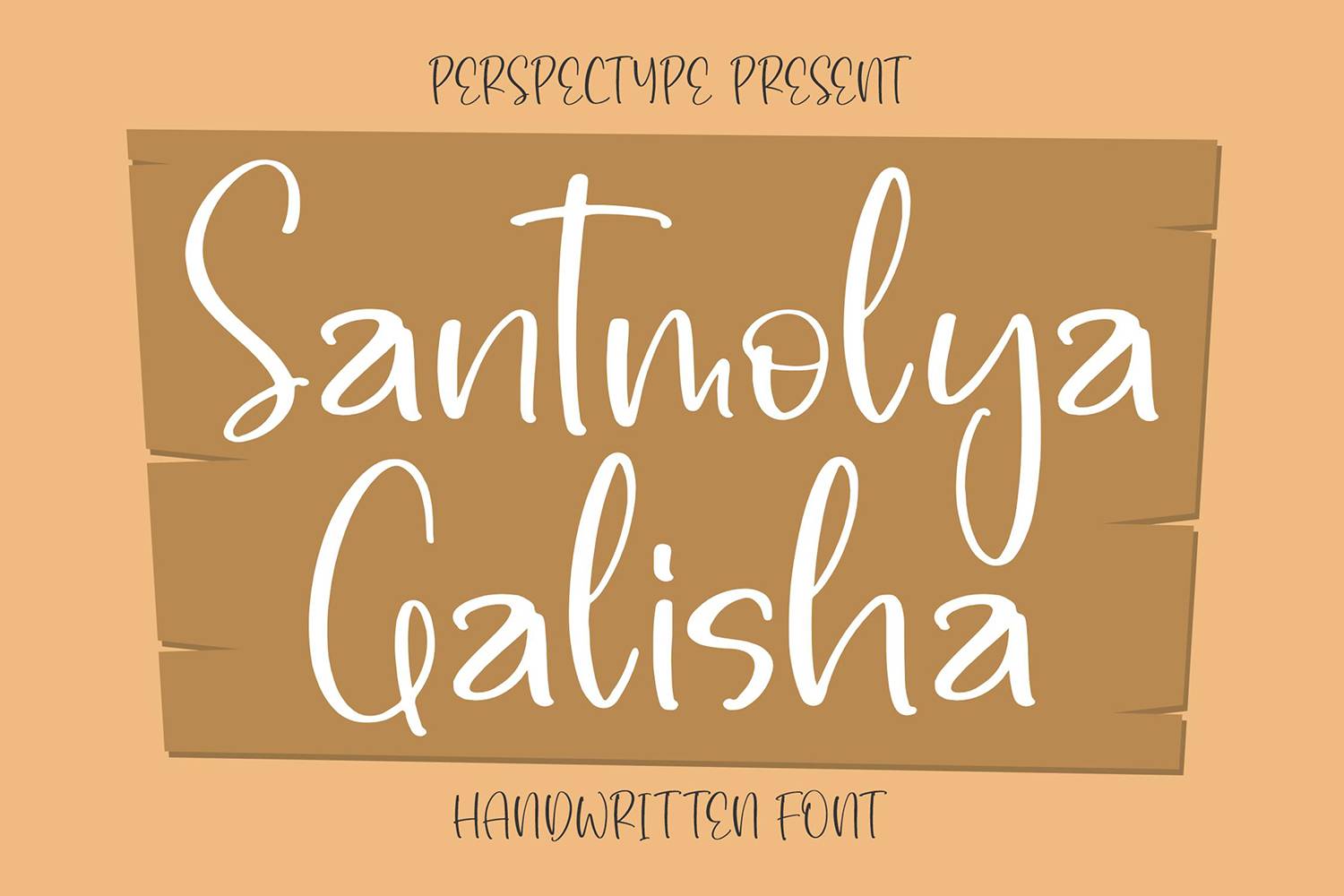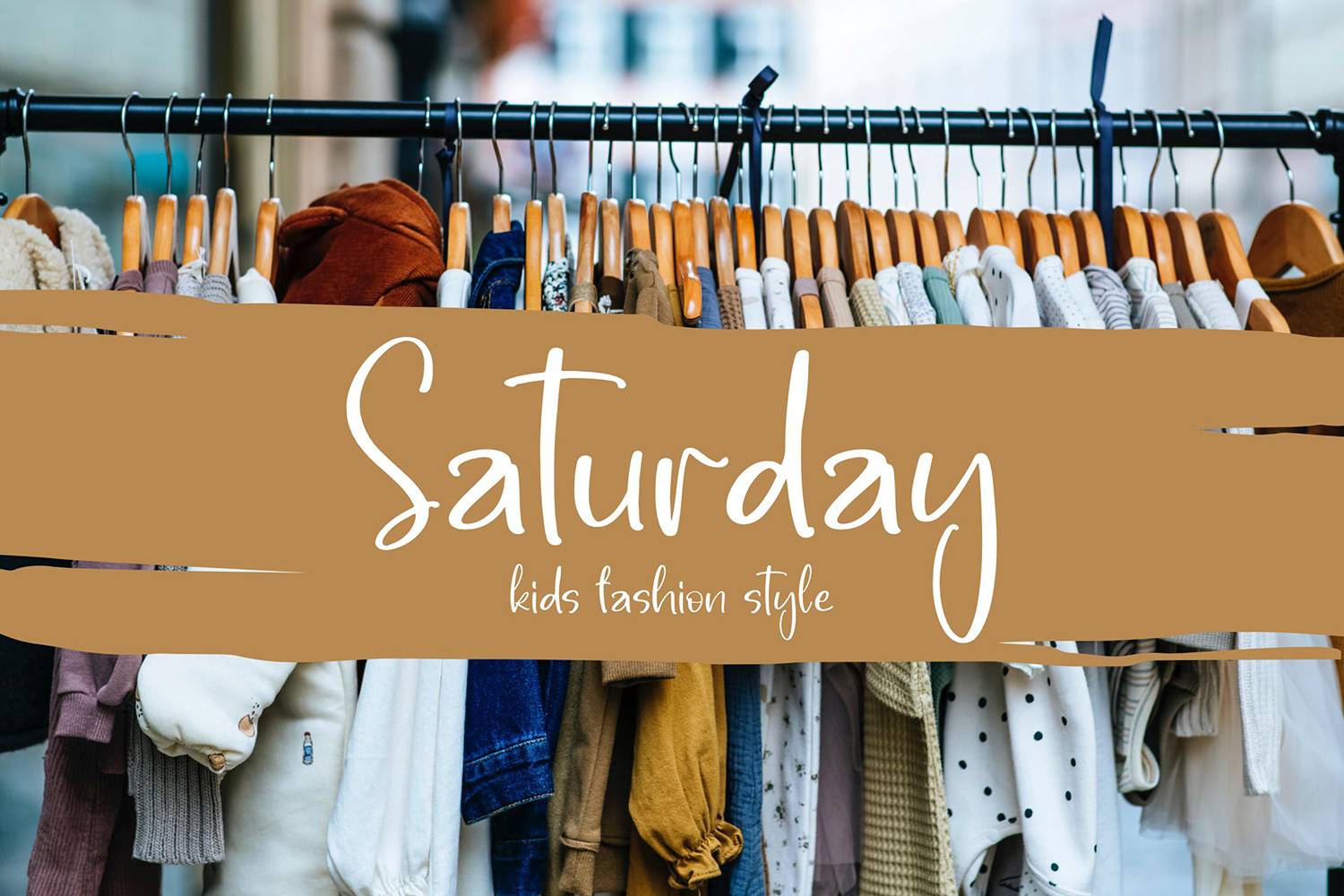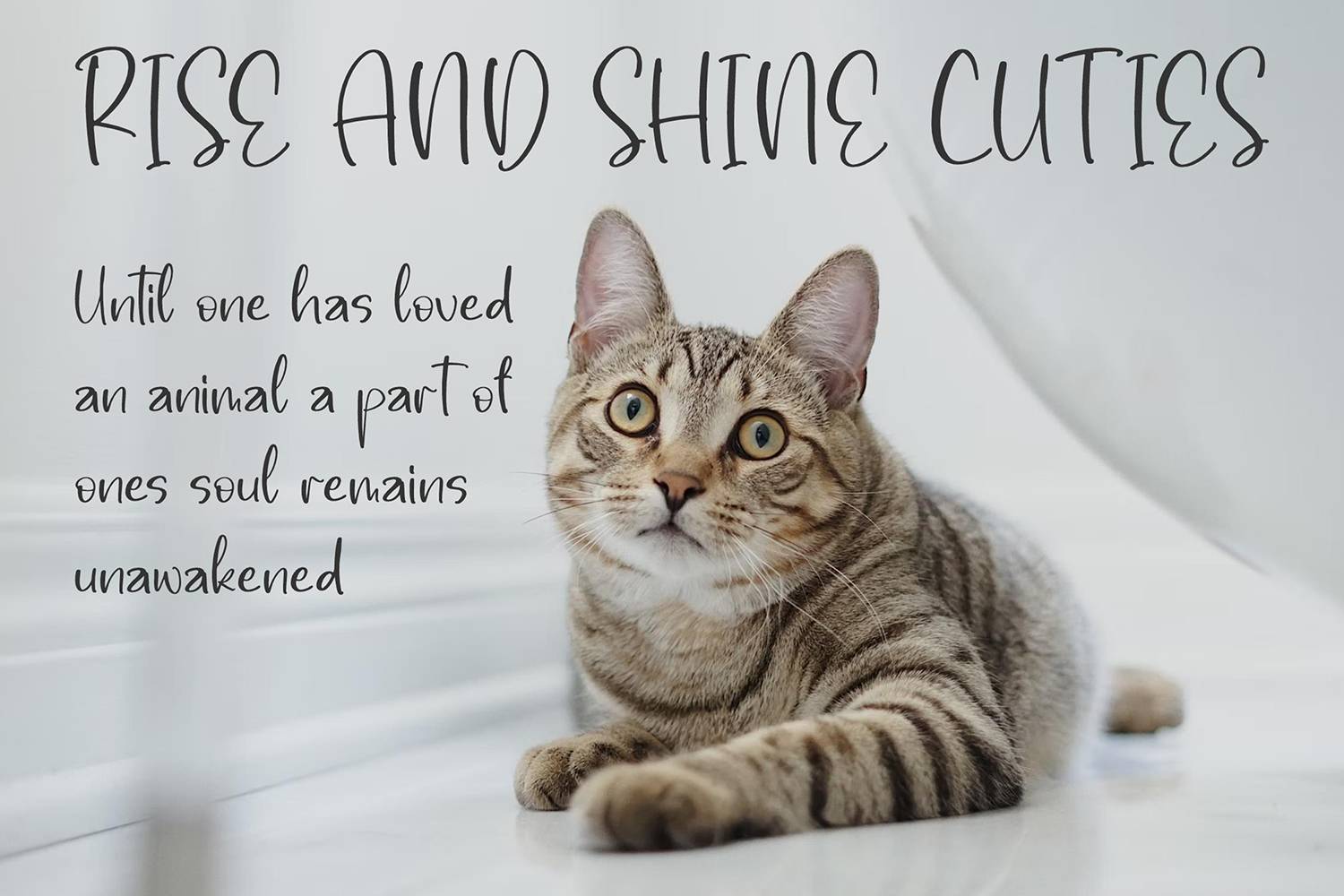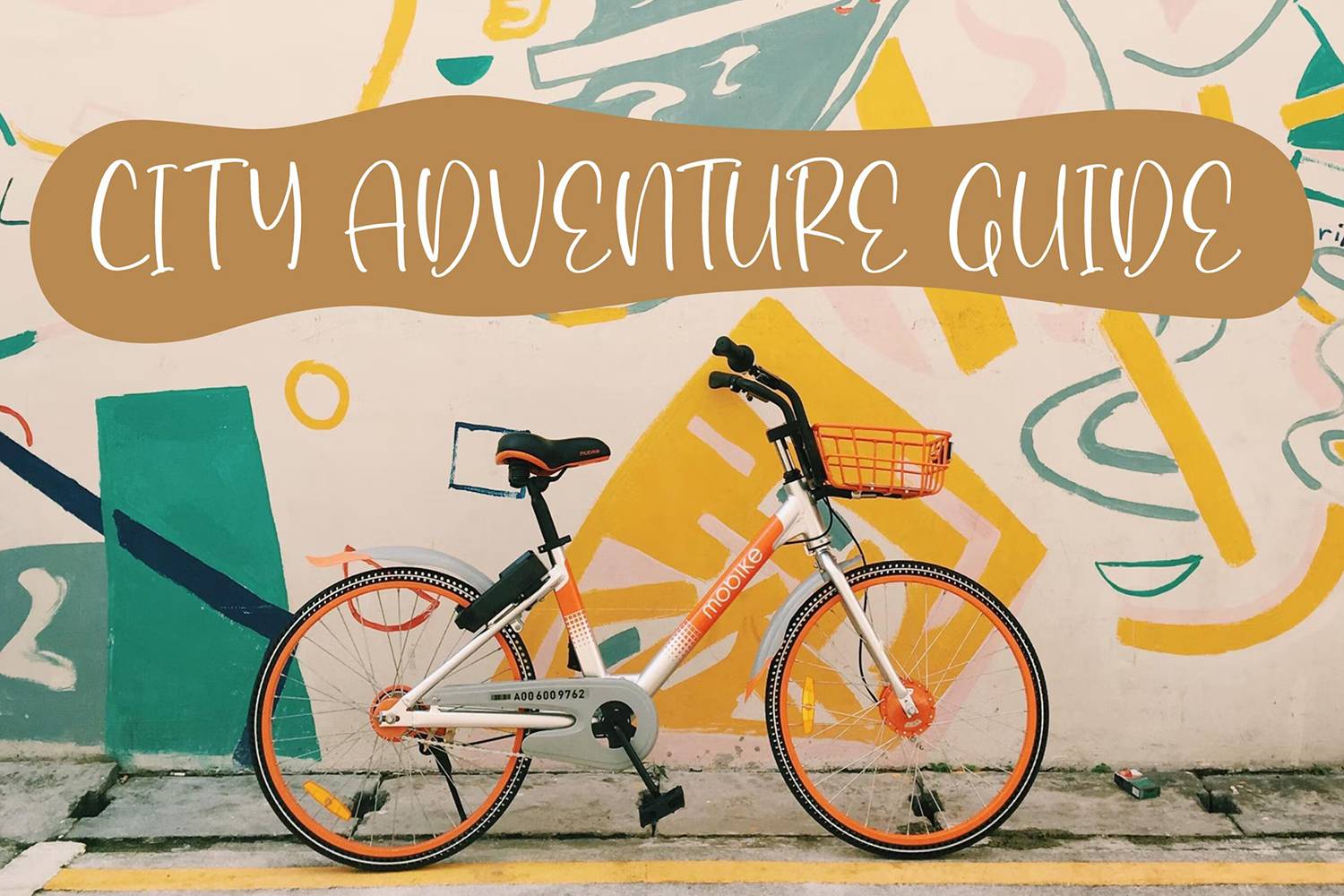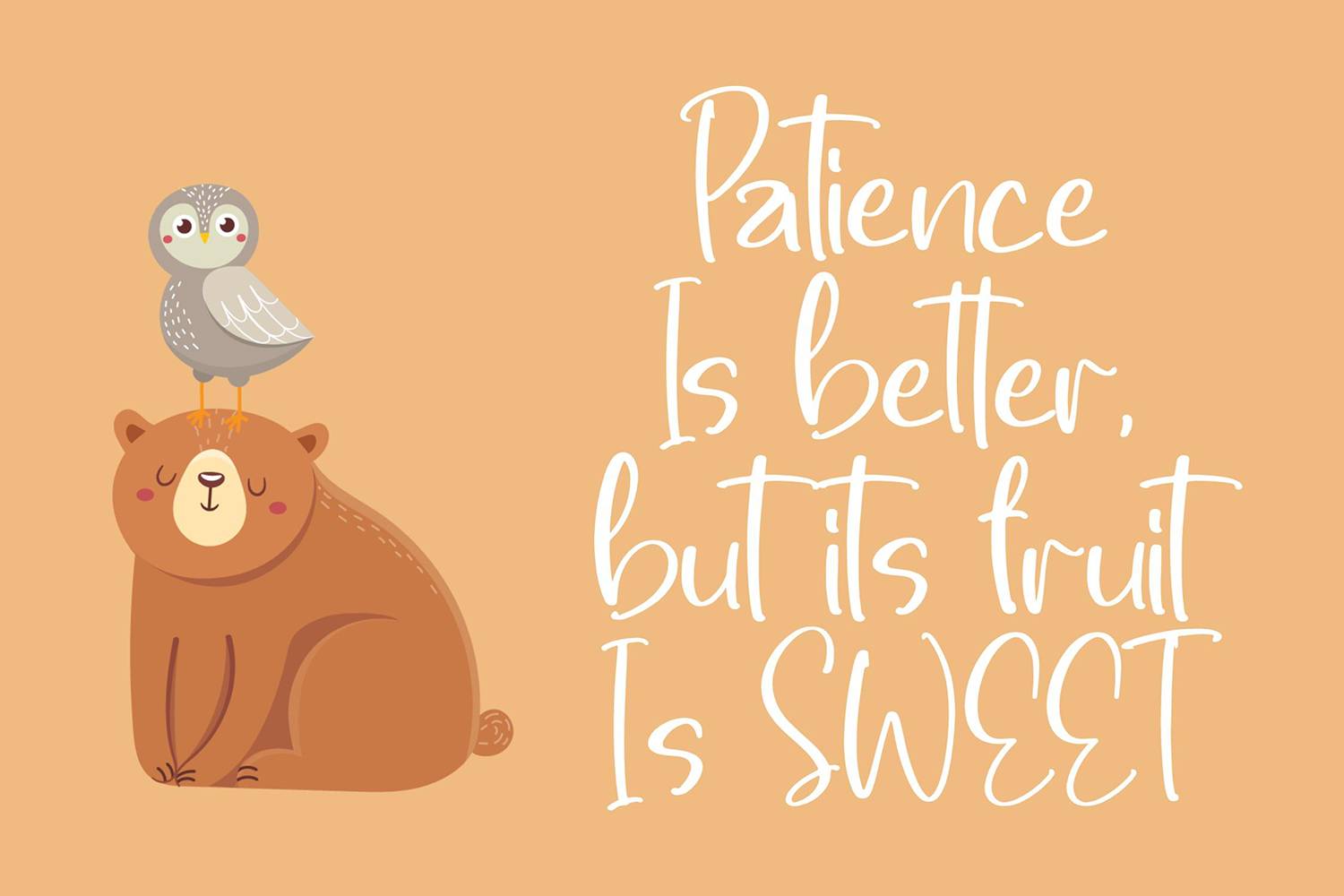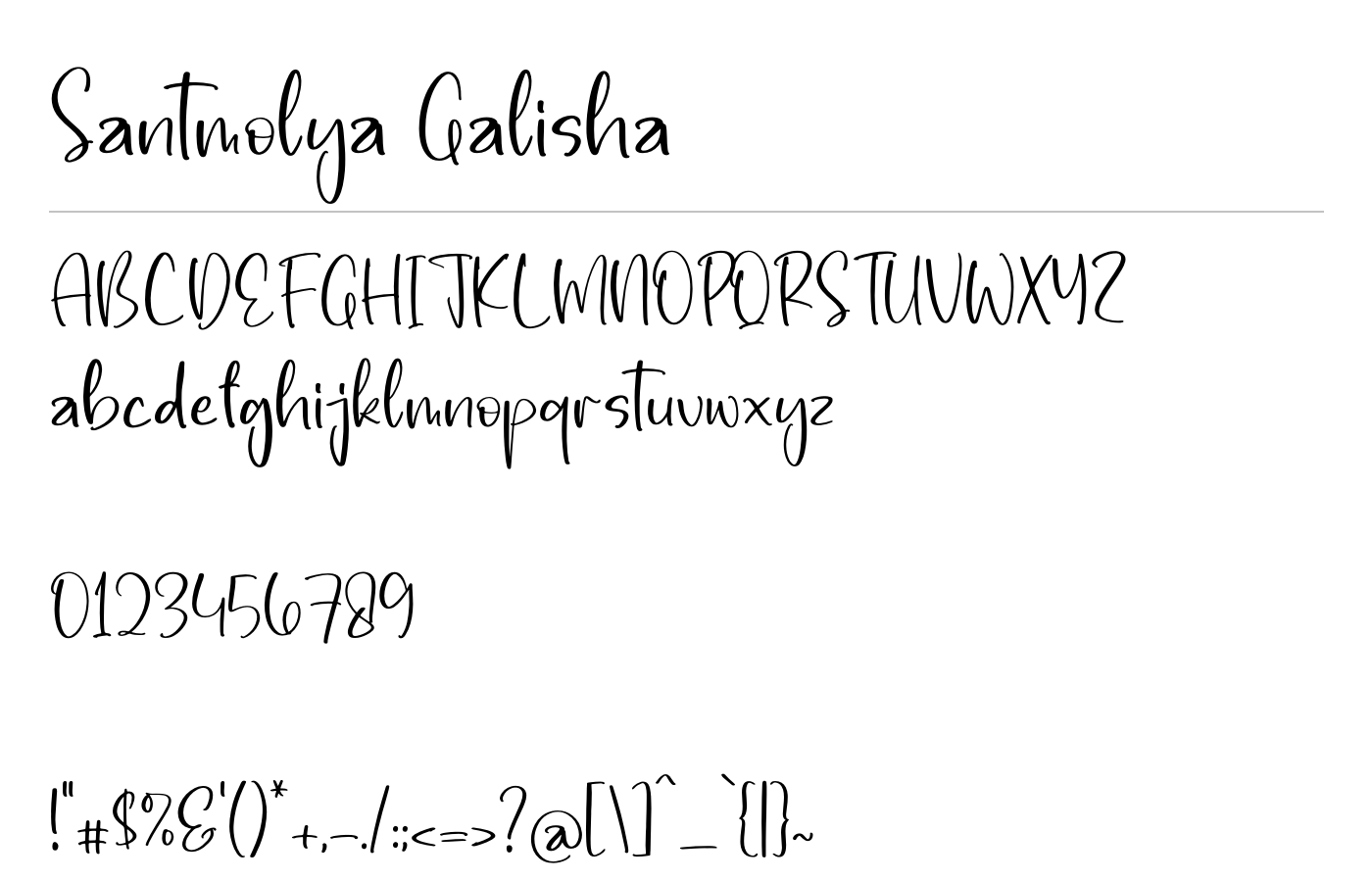
Santmolya Galisha is a light, handwritten script font with a playful and casual feel, featuring tall, narrow letterforms and a slightly irregular stroke that adds charm and personality. Its airy spacing and simple, flowing curves make it ideal for creative projects, friendly branding, invitations, and lifestyle blogs where a personal, approachable touch is desired. This font works best in headlines and short text where its unique, informal style can truly stand out.
Santmolya Galisha Font